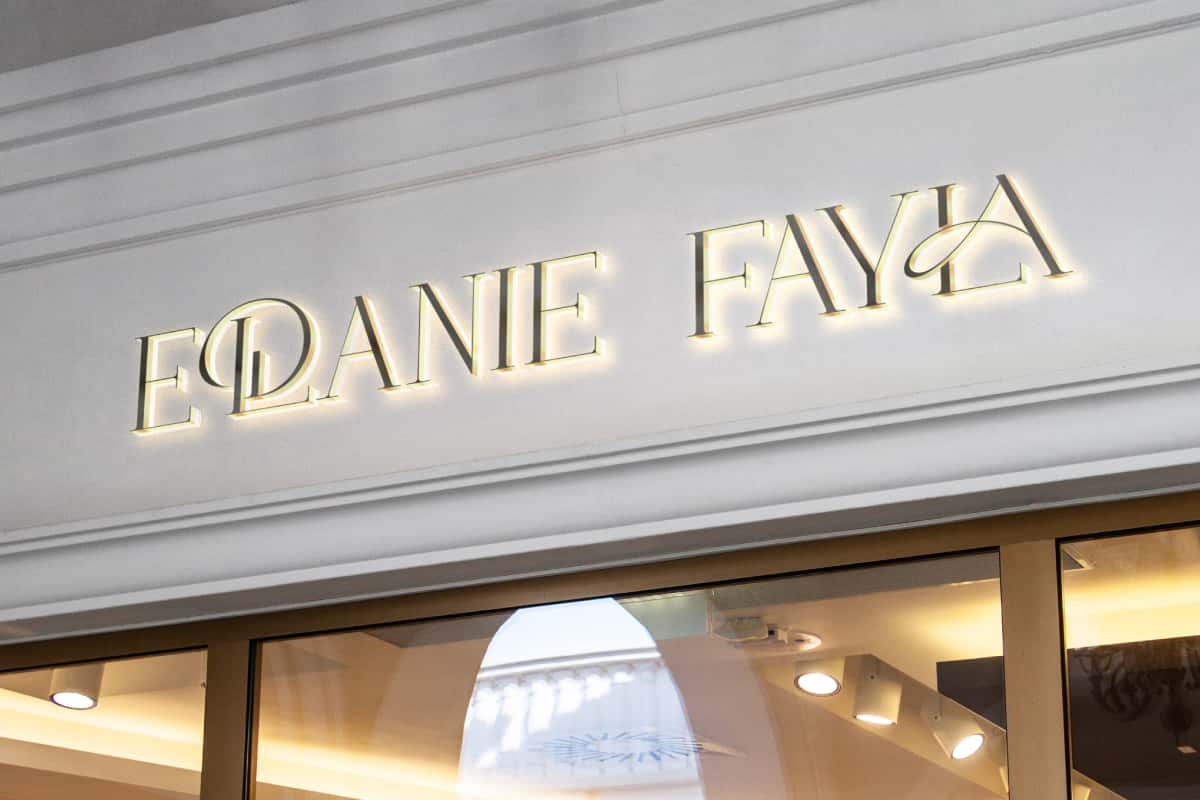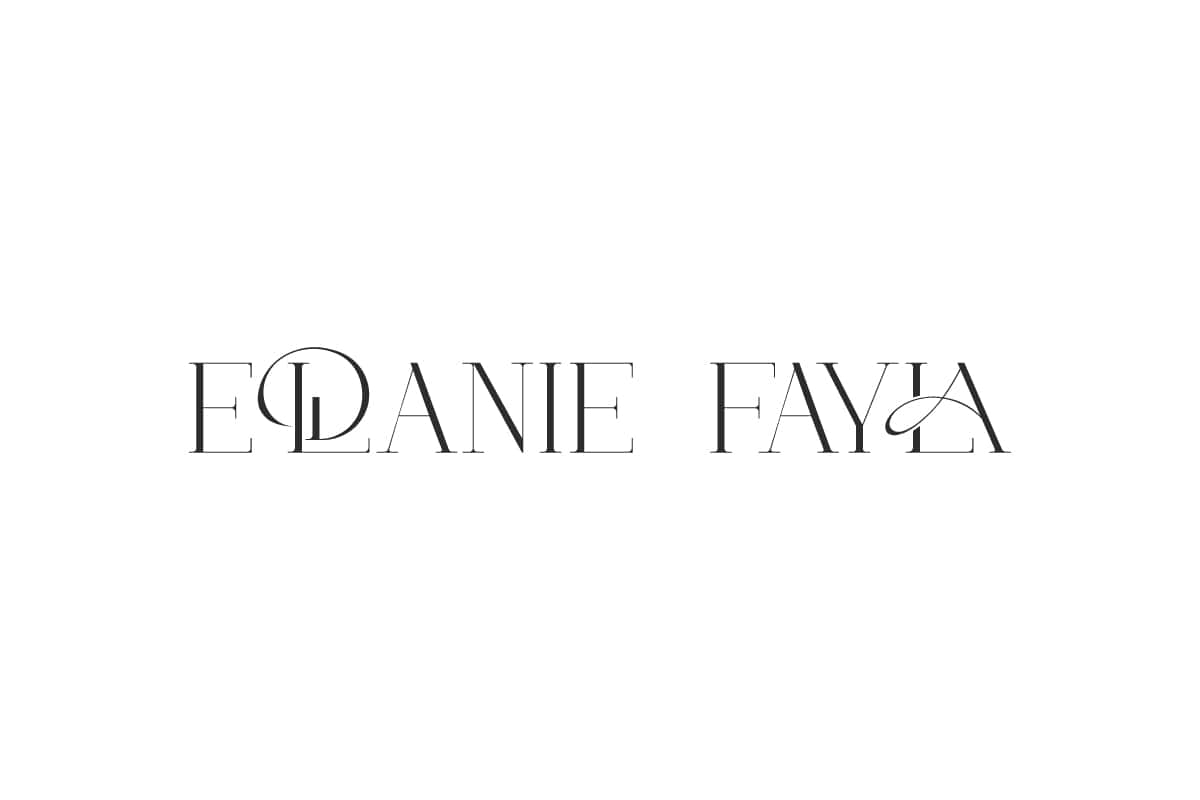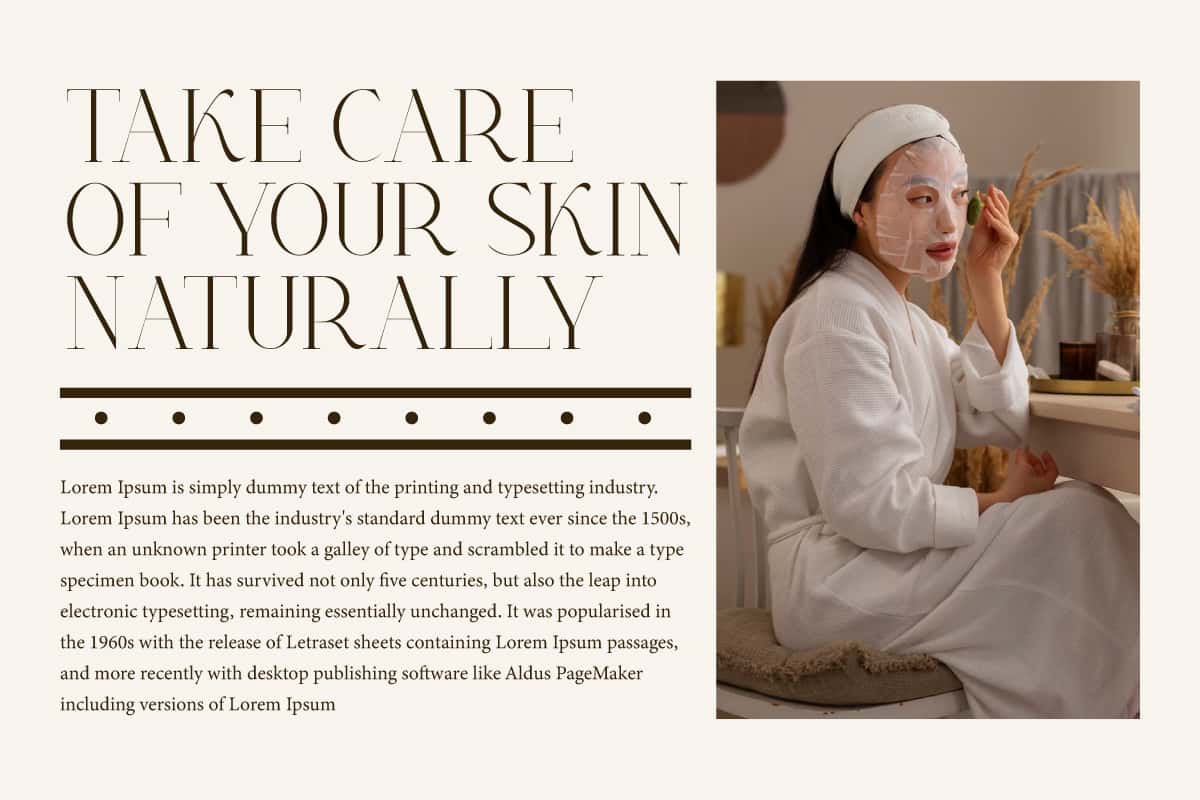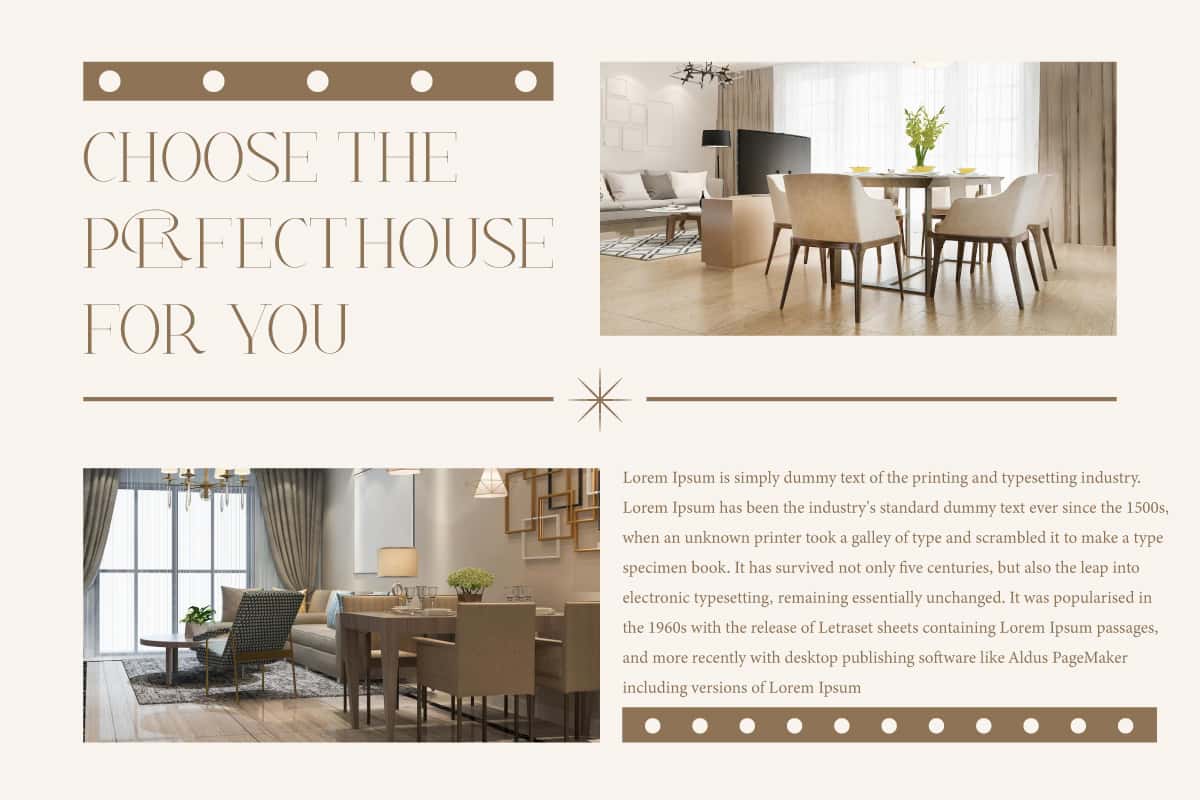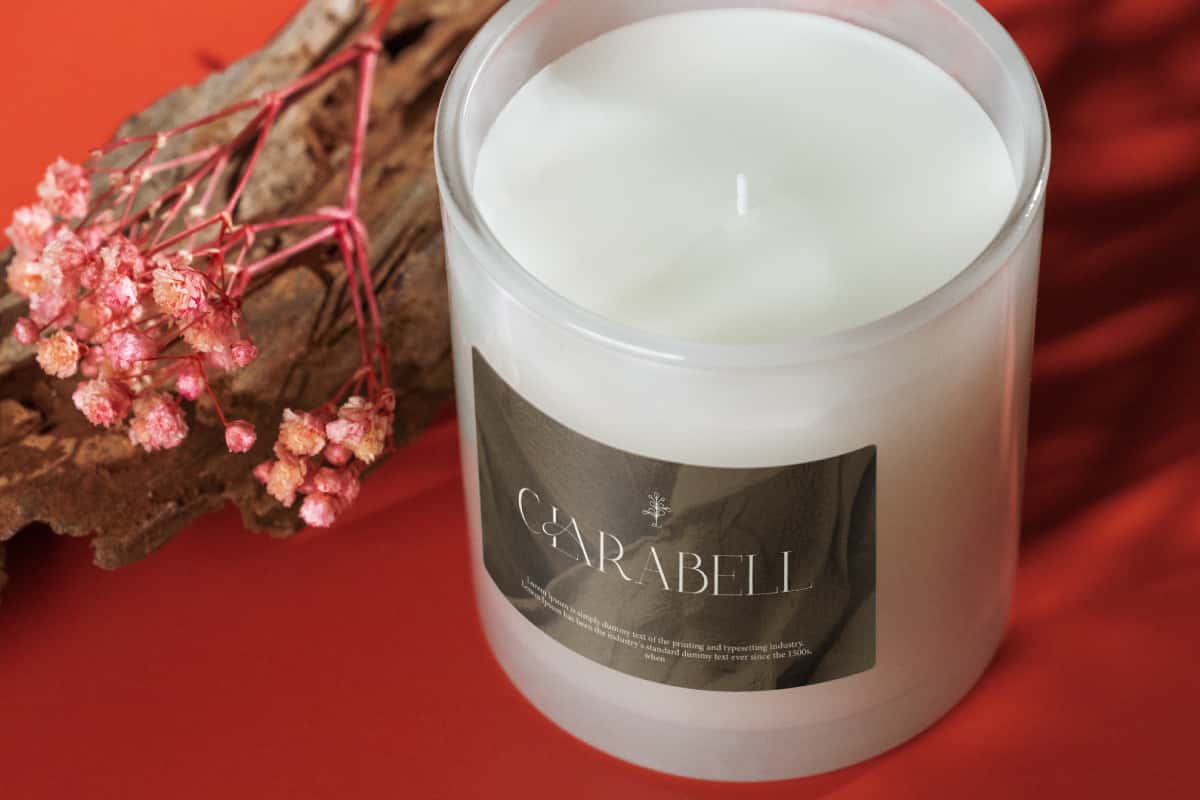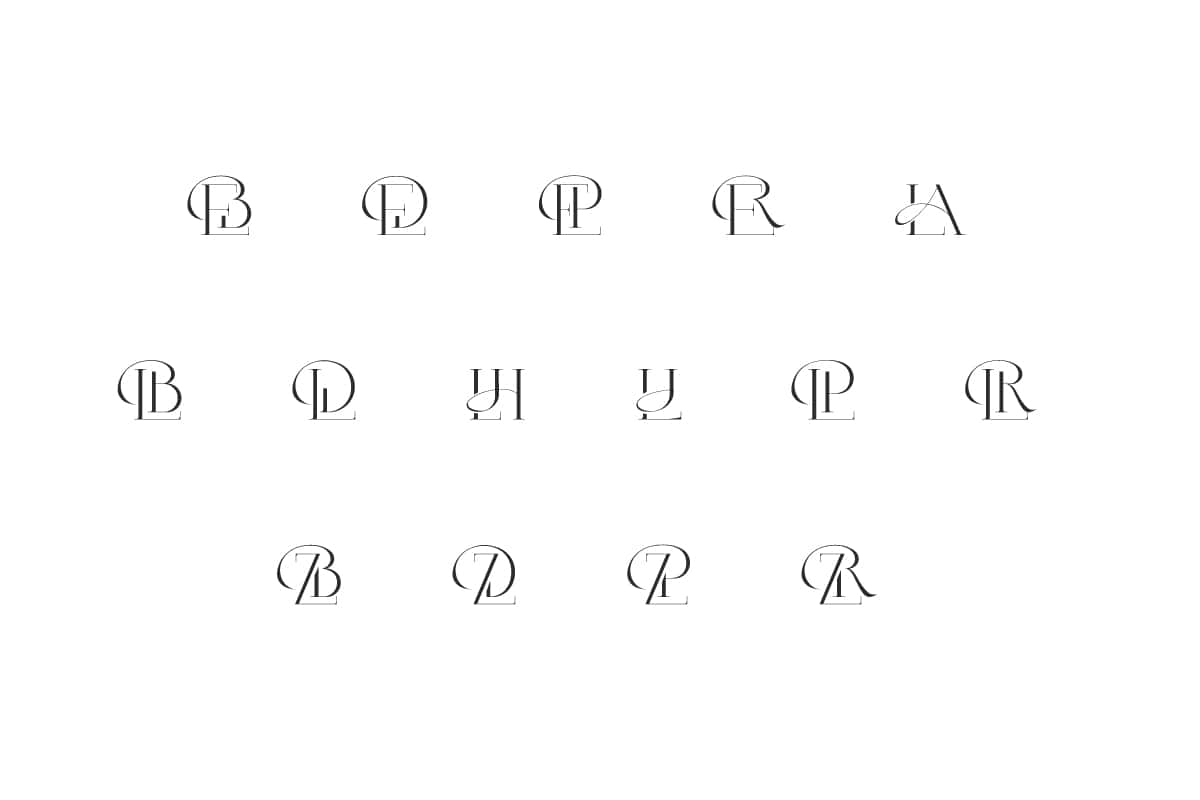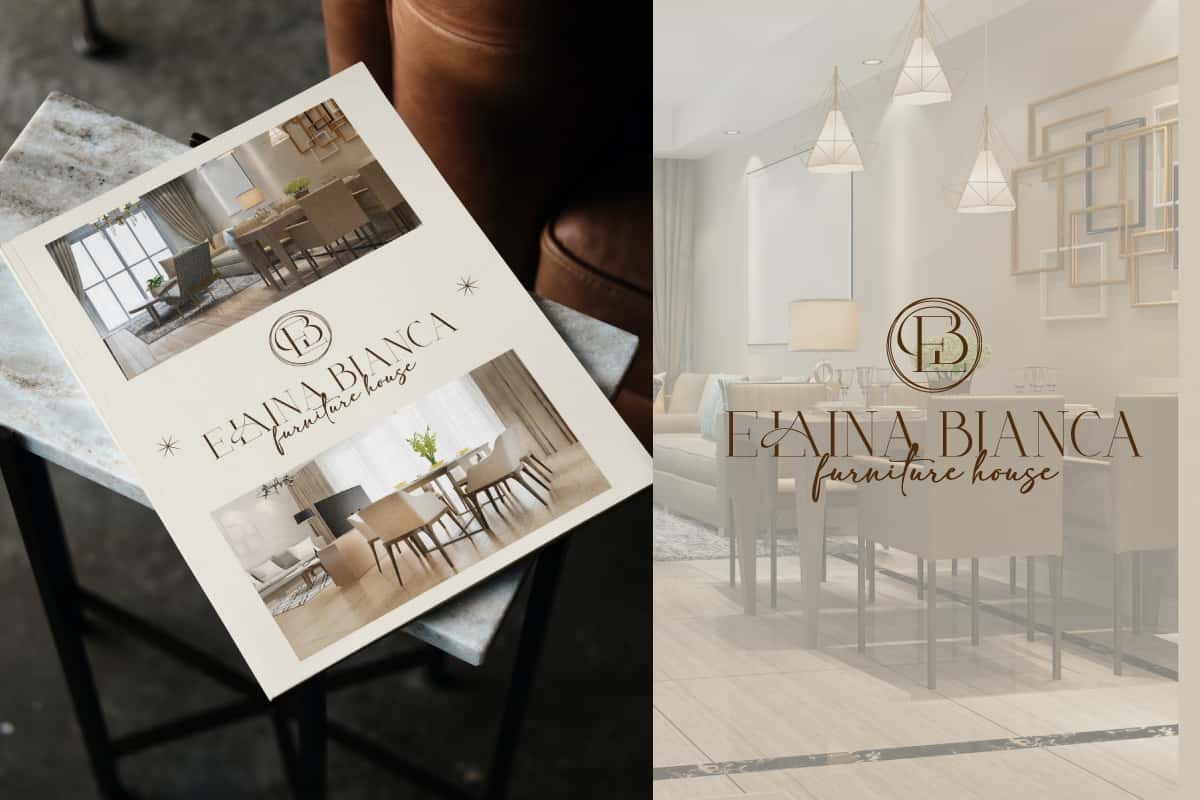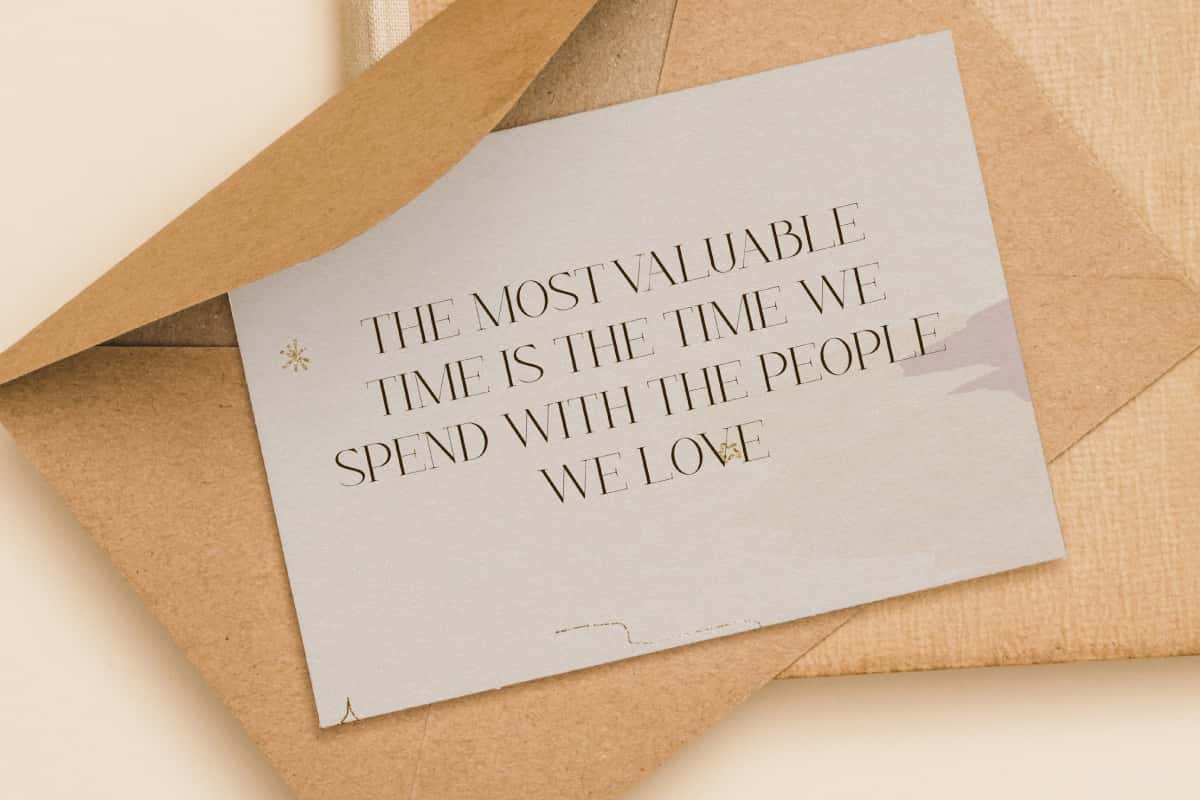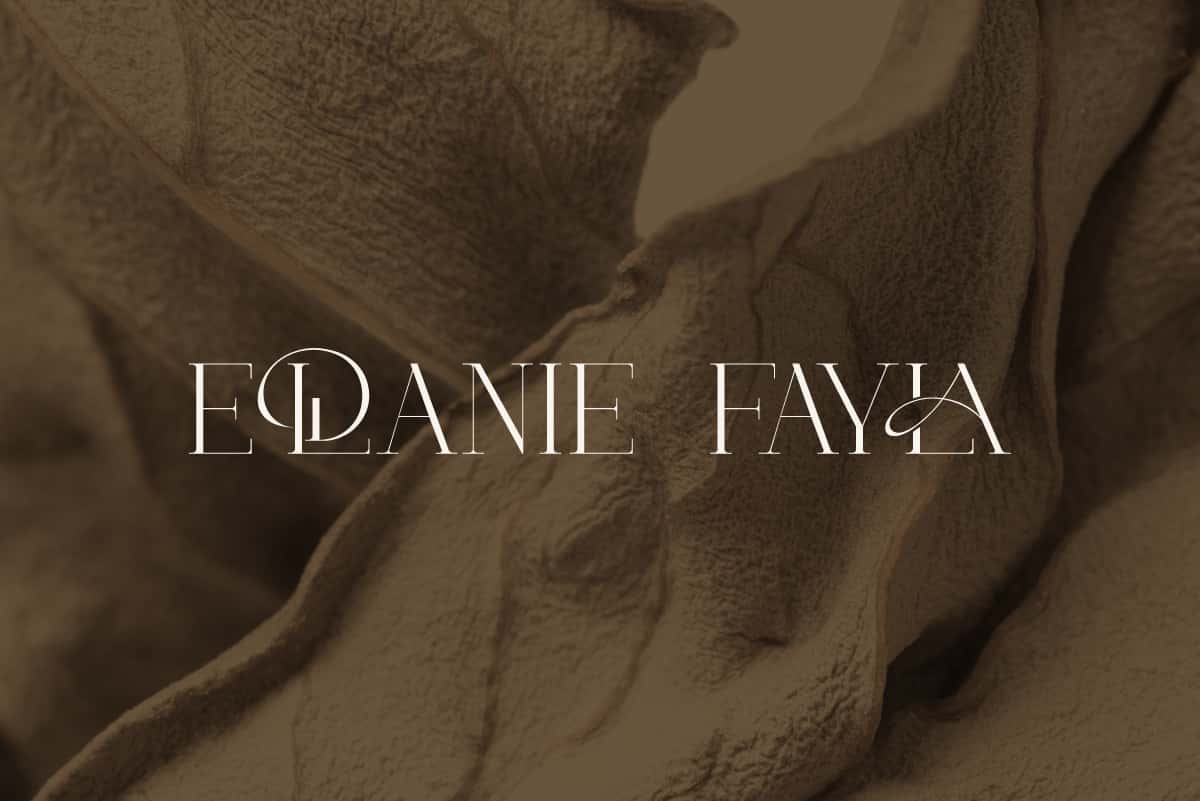
Eldanie Fayla Font is a beautiful, slender, casual serif display font that elevates ordinary text into an extraordinary masterpiece.
Eldanie Fayla Font is a beautiful sleek and thin serif display font, created with classic branding in mind, that effortlessly merges vintage charm with contemporary style. Perfect for apps, banner, brochure, captions, flyer, greeting cards, headers, invitation, letters, menus, mockup, product label, quotes, title, website, etc.
Eldanie Fayla Font includes full set of Uppercase and Lowercase Basic Characters, Numbers, Punctuation, Symbols and Ligatures. It will be very suitable for accessories and gifts, advertising, beauty product, boutique, fashion, graphic design, handicraft, hotel, interior design, jewelry, restaurant, spa salon, venue and more. The ideal choice for unparalleled aesthetics and enduring elegance. Unleash your creativity!